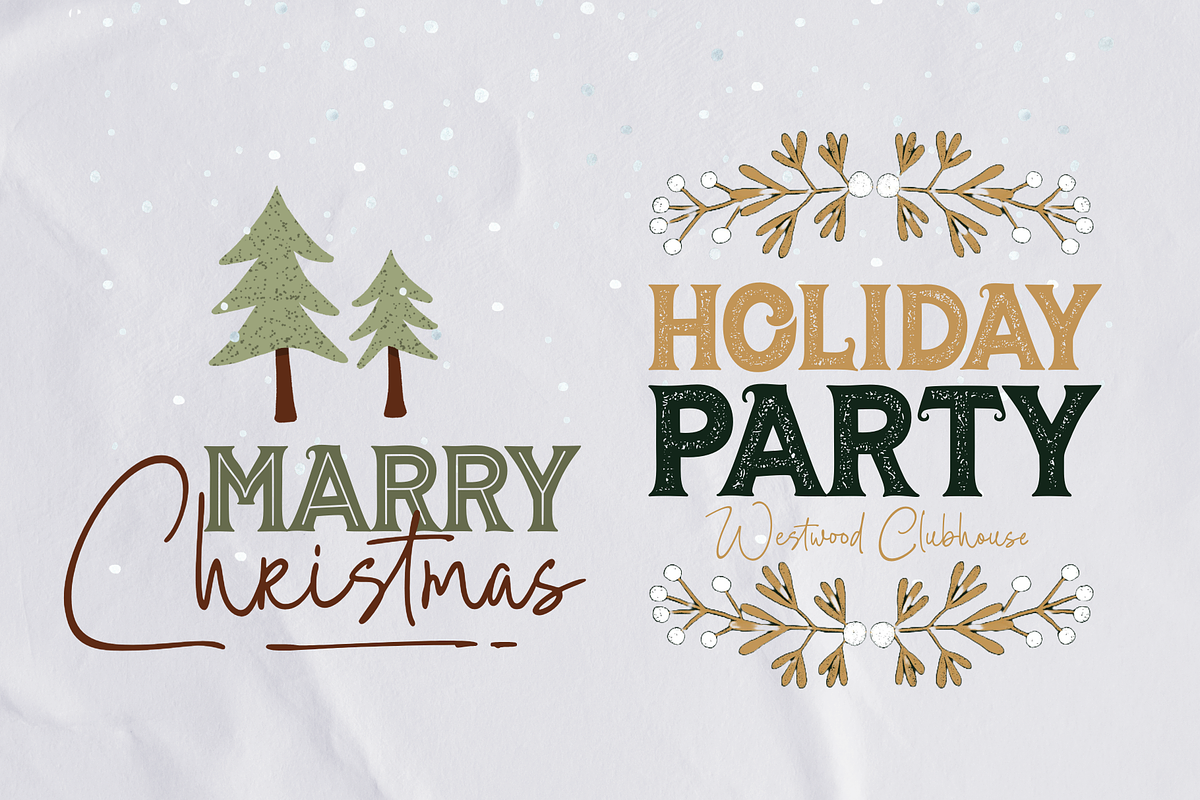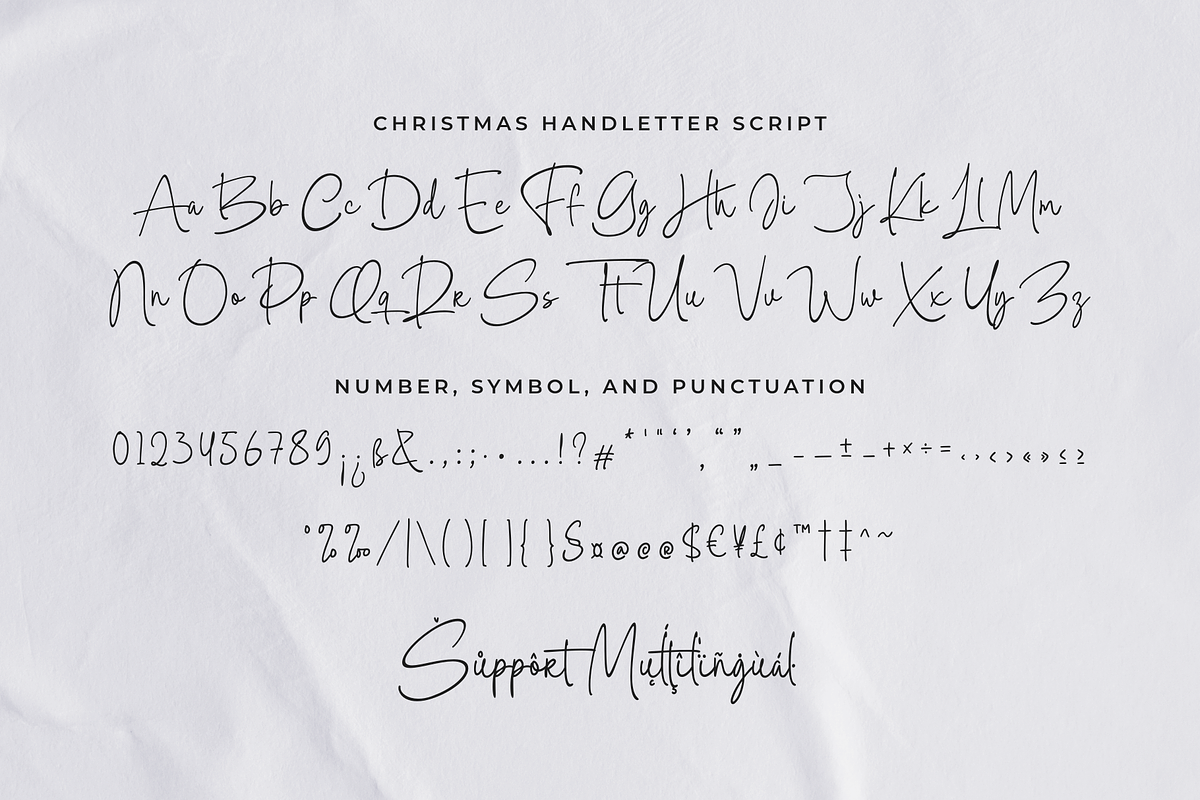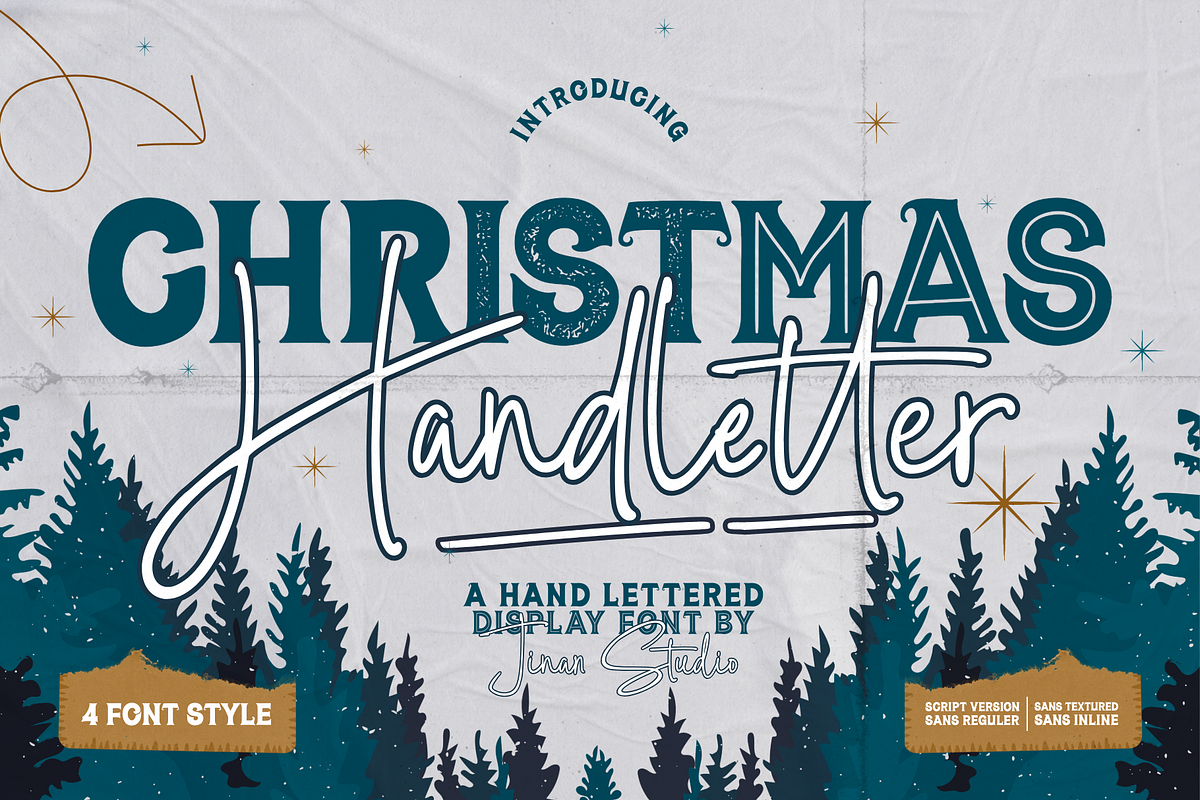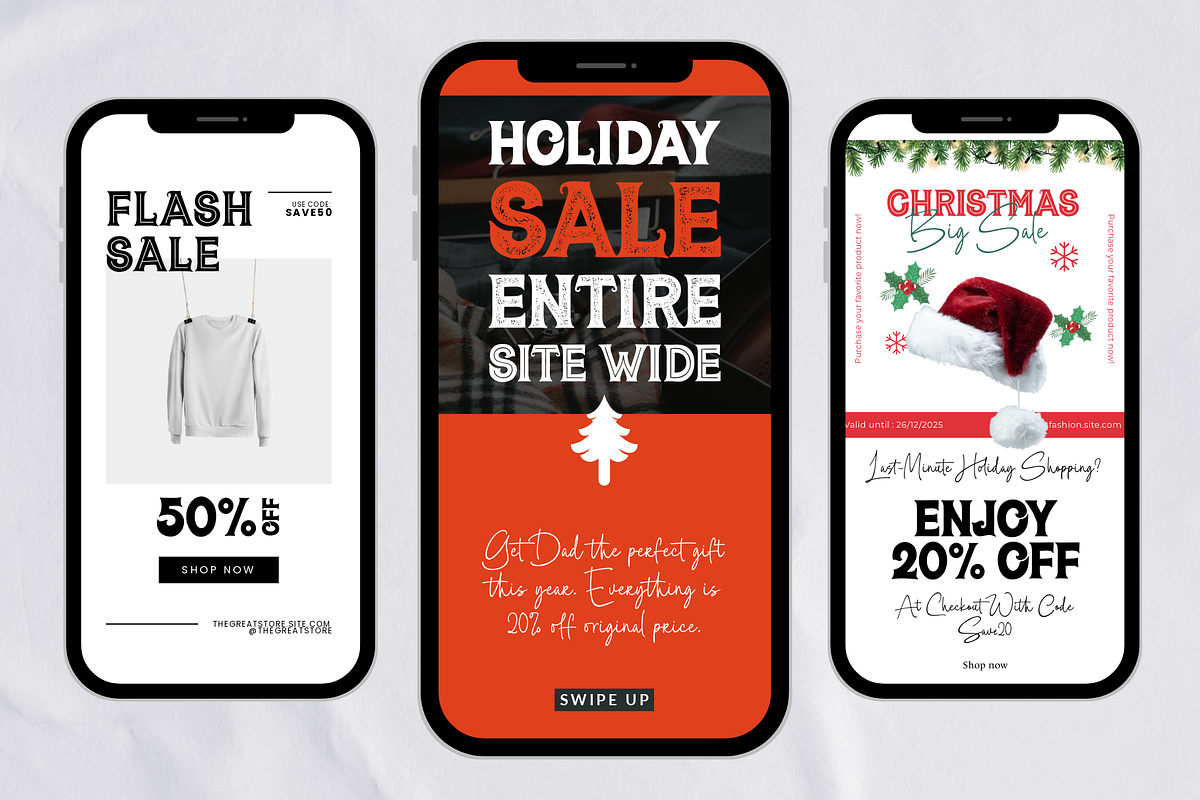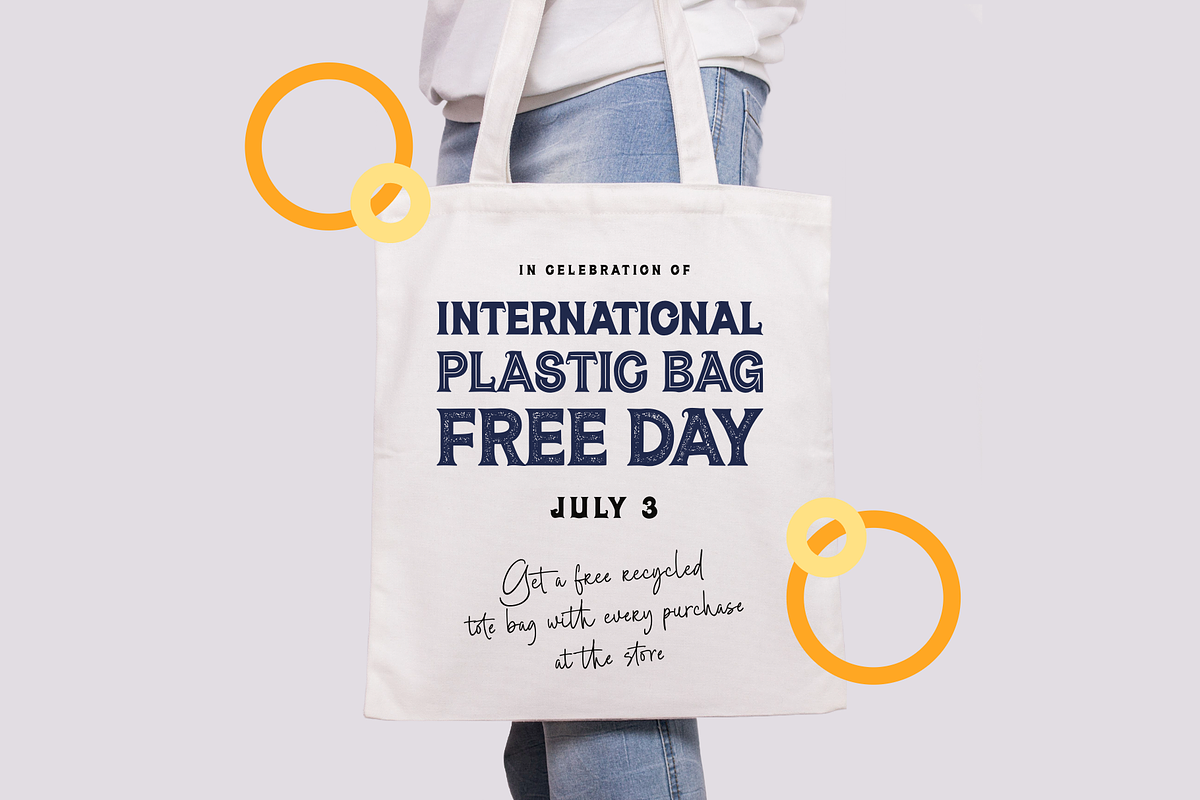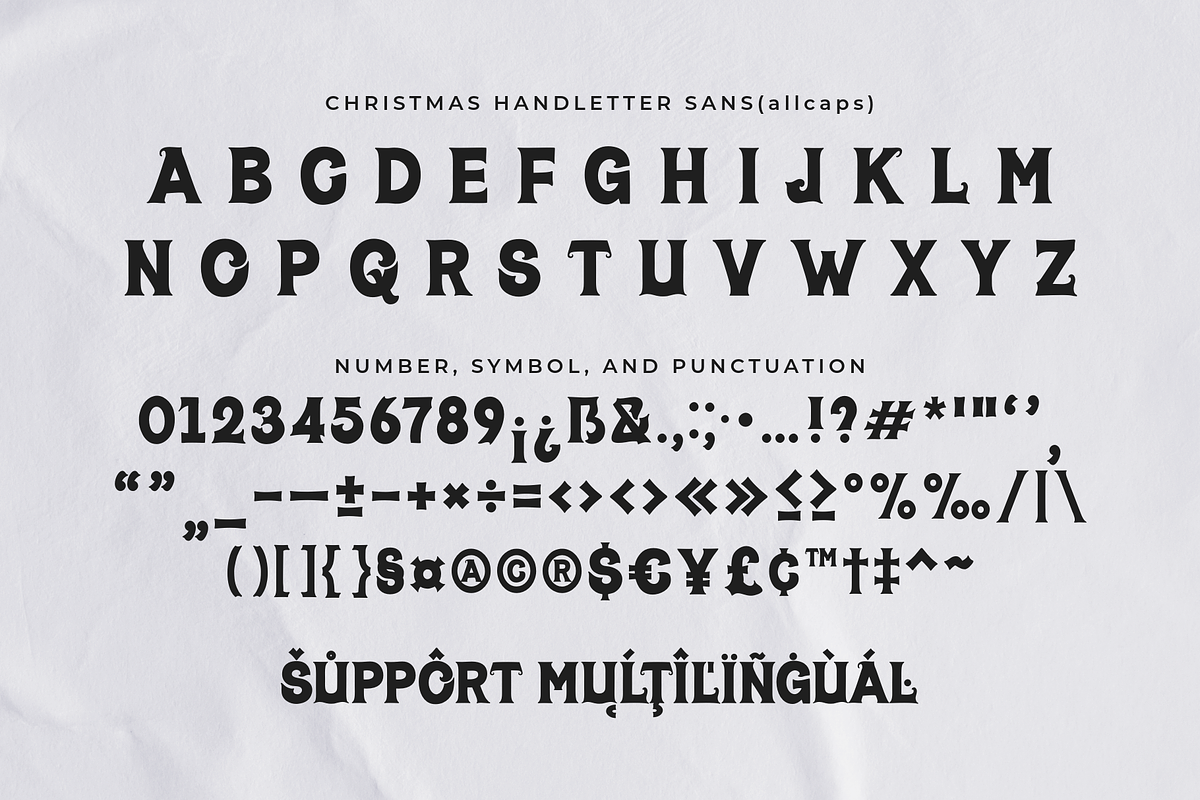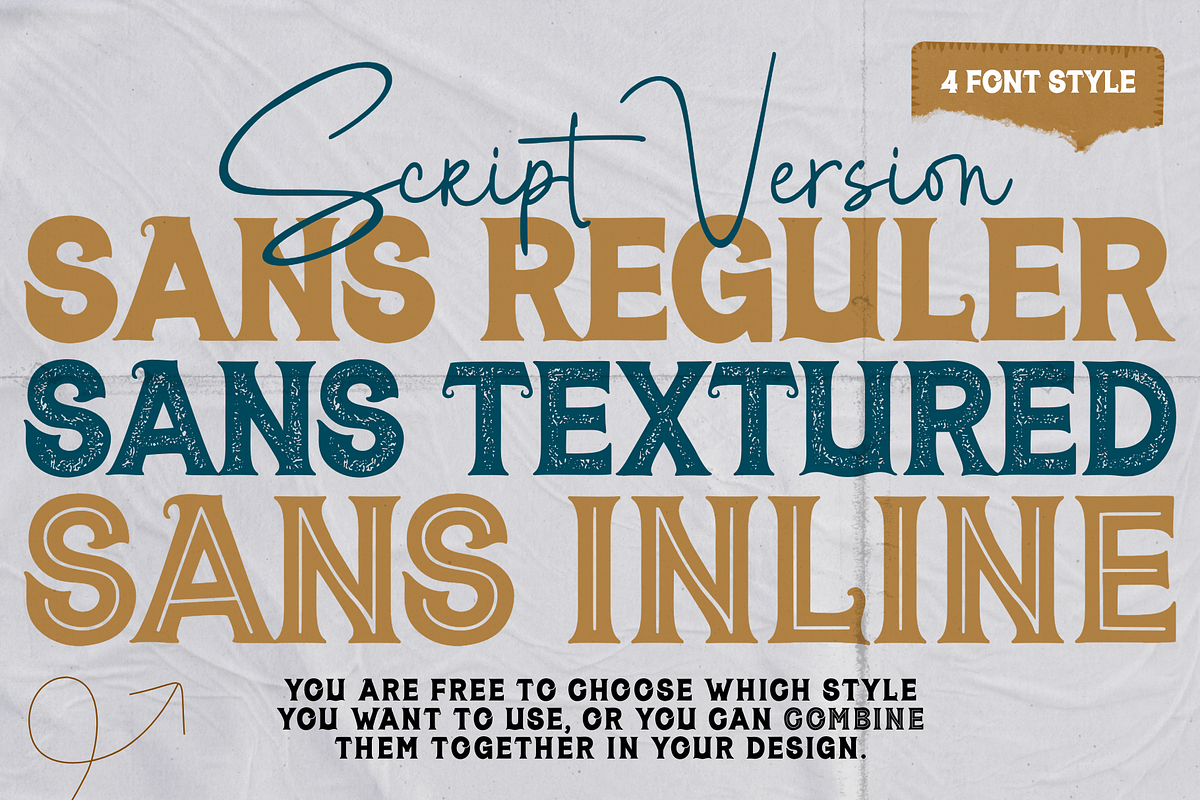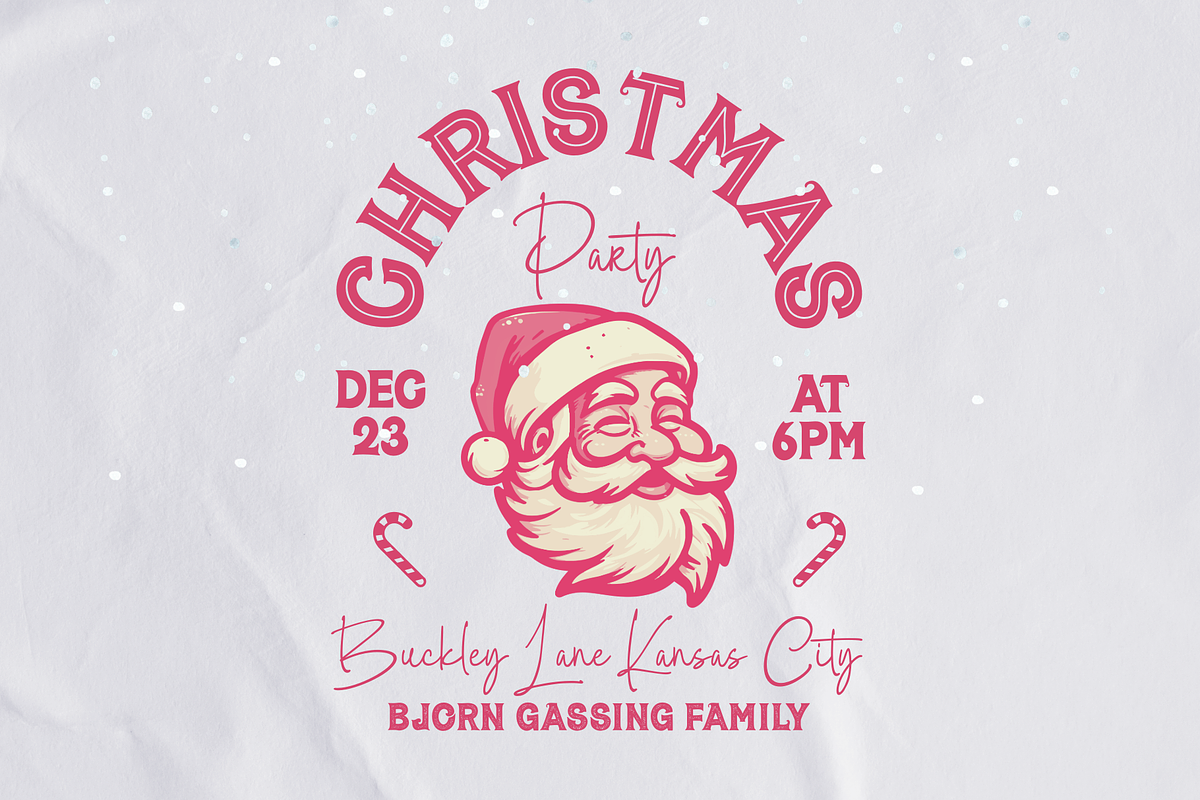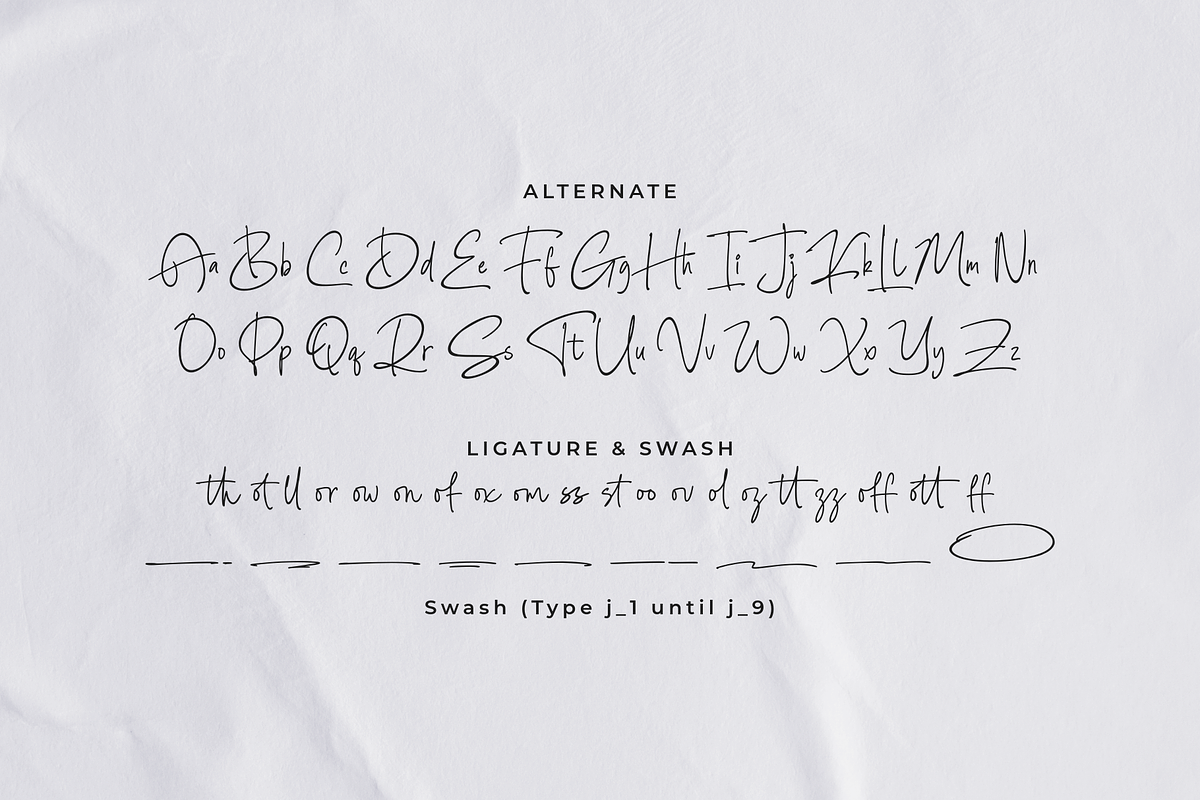
Christmas Handletter
Christmas Handletter, is a beautifully crafted hand-lettered display typeface, perfect for adding a festive and cozy touch to any holiday-themed project. With its stylish blend of script and sans-serif styles, this font gives off a warm, handcrafted feel, ideal for Christmas cards, invitations, or festive designs.
The font features four different styles:
- Script Version - a smooth, flowing handwritten look.
- Sans Regular - clean, bold characters for readability.
- Sans Textured - adds a rustic, weathered look.
- Sans Inline - giving a unique layered appearance.
It embodies the magic of the holiday season, combining elegance with versatility, making it the perfect choice for any Christmas-themed project.
- A set of uppercase and lowercase glyphs
- Number, symbol, and punctuation
- Alternates, ligatures, and swashes (only script version)